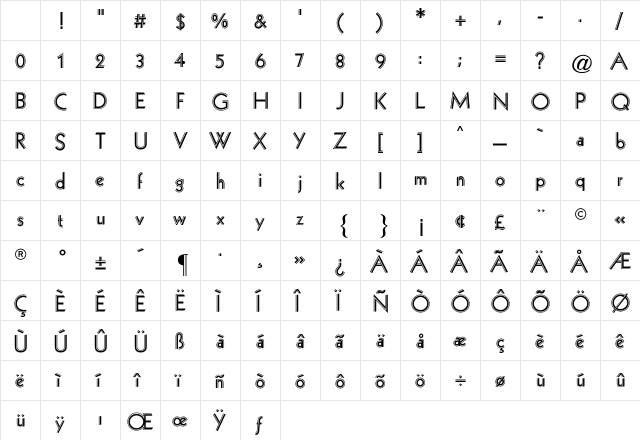
Complete Zeppelin CG Regular glyph index. Displaying only characters natively supported by Zeppelin CG Regular font.
Zeppelin CG is a composed and adaptable typeface that performs quietly and consistently across a wide range of design contexts.
Who designed the Zeppelin CG Regular font?